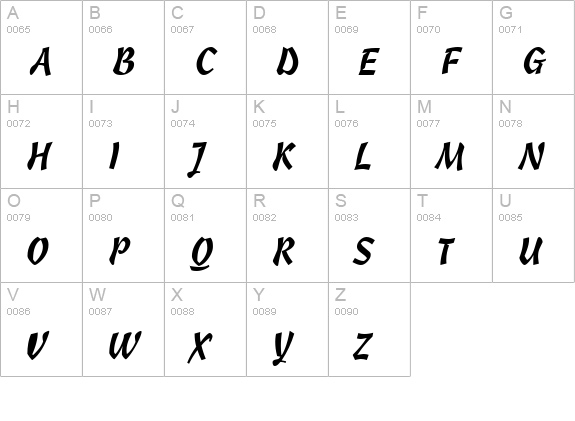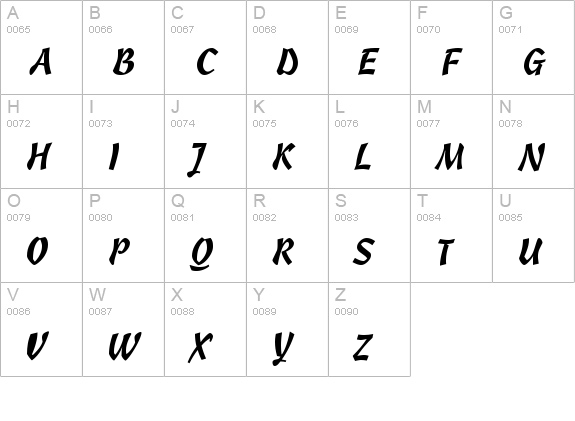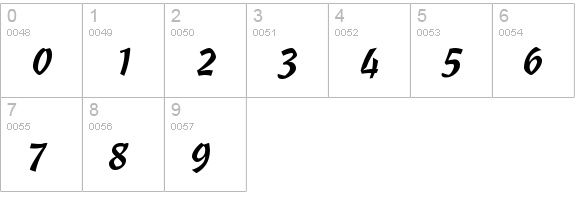
Cassia Regular Font Details
Cassia Regular is the standard, neutral variant in the Cassia typeface family \xE2\x80\x94 well suited to general body text, paragraphs, and standard typographic work.
Cassia Regular font is a versatile and elegant typeface that exudes sophistication and modernity. With its clean lines and balanced proportions, this font is perfect for a wide range of design projects, from branding to editorial design. The timeless appeal of Cassia Regular makes it a popular choice among designers and creatives looking for a classic yet contemporary typeface. Best of all, Cassia Regular is available for free download at FontsMarket.com. Whether you're working on a personal project or a client's design, you can easily access this high-quality font without any cost. Don't miss out on the opportunity to enhance your designs with the timeless beauty of Cassia Regular - download it for free today at FontsMarket.com!